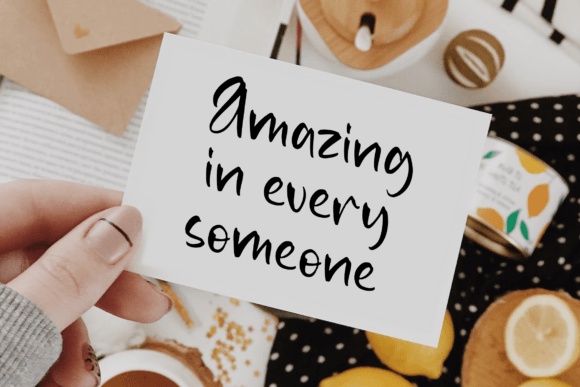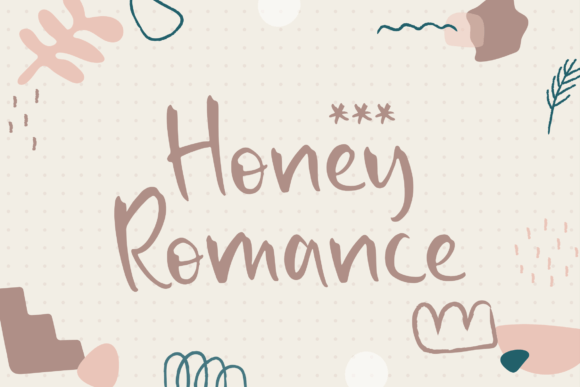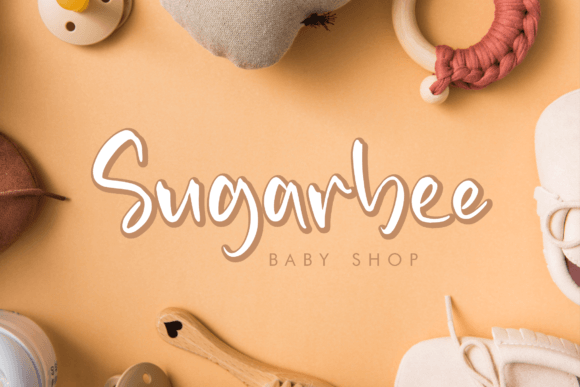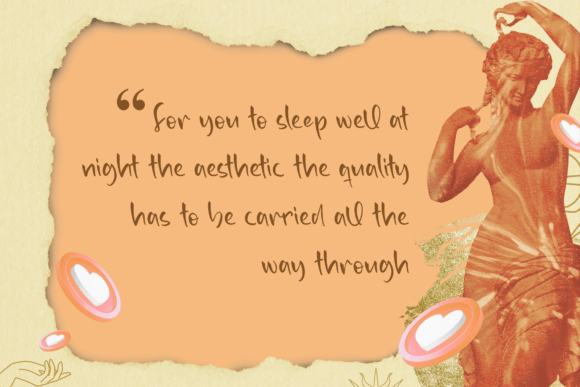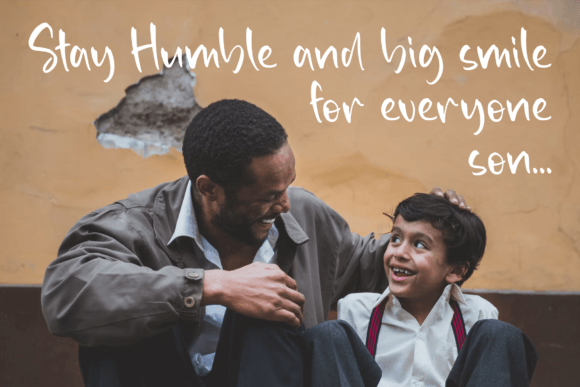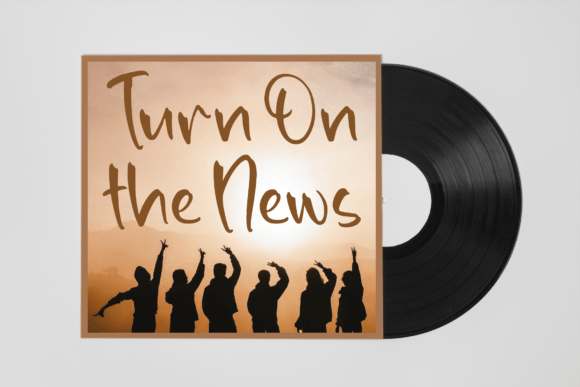
Introduction to Rattlebig Font
Rattlebig is a natural handwritten font with a brush style.
Add it to logos, branding projects, homeware designs, product packaging, mugs, quotes, posters, shopping bags, t-shirts, book covers, cards, labels, photography, watermark, or special events .